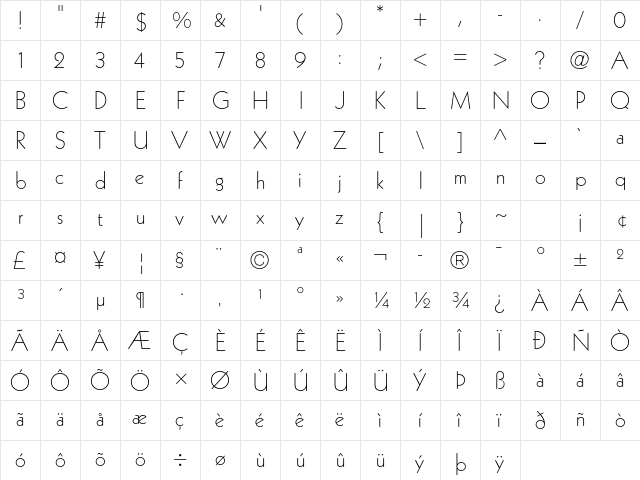
Kabel LT Std Light
| Designer | Rudolf Koch |
Design Context for Kabel LT Std Typeface
Kabel LT Std is a composed and adaptable typeface that performs quietly and consistently across a wide range of design contexts. Its slender proportions lend an understated elegance to any composition.